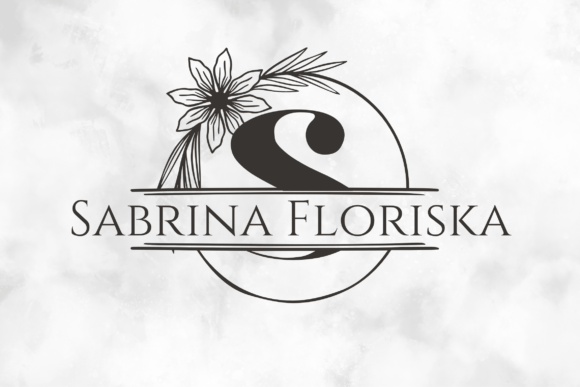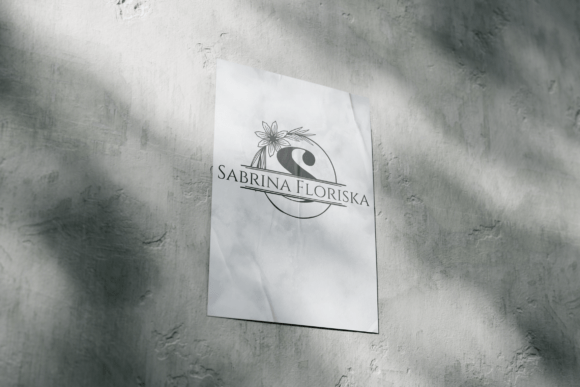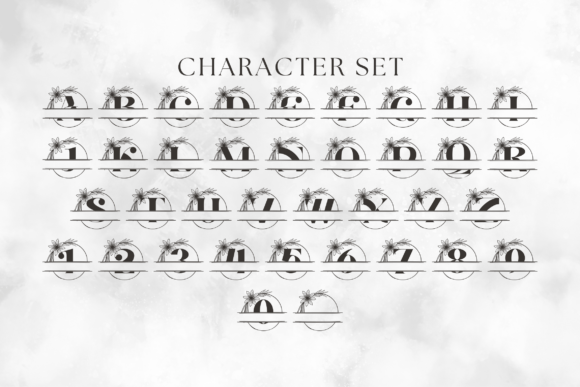
Introduction to Aurelia Monogram Line Font
Unleash your creativity with Aurelia Monogram Font, the ideal typeface for crafting exquisite monograms, logos, and tailored branding.
Radiating elegance and versatility, its polished letterforms and intricate detailing makes it an essential tool for designer arsenals From wedding invitations conveying timeless grace, high-end branding exuding luxe charm, to stationery and customized handcrafts – Monogram Font beautifully enhances each piece with its unique class, adding unparalleled character to your creations.
Aurelia Monogram Line Font offers exceptional quality and versatility, making it a valuable addition to your design toolkit. Whether you’re creating for personal projects or commercial use, Aurelia Monogram Line Font delivers professional results.